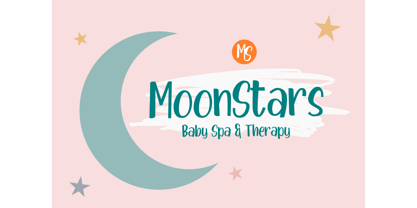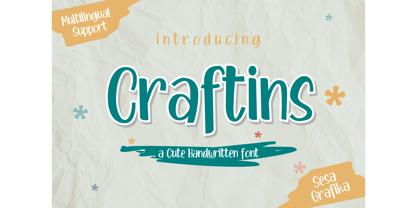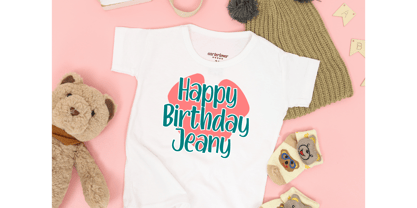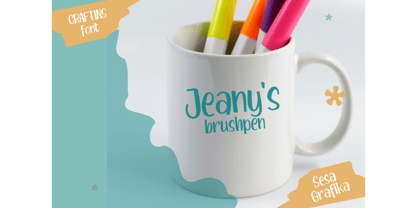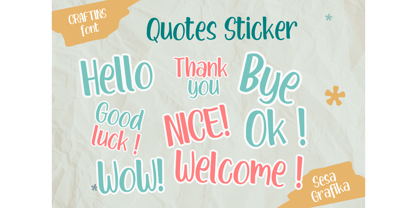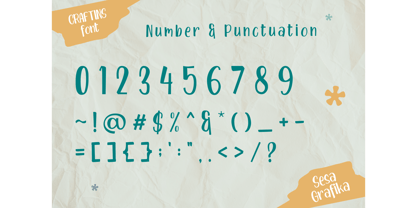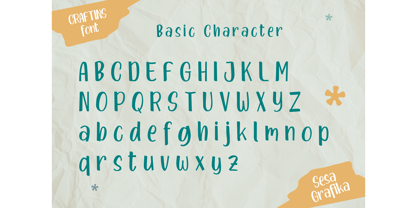
Craftins
The Craftins Font Family was designed by Wisesa Purba Giandar and published by Sesa Grafika. Craftins contains 1 styles.
Craftins is a trendy handwritten font with a contemporary atmosphere and impeccable form, inspired by timeless classic calligraphy. It will add elegance and class to any of your design projects.
a meticulously crafted handwritten font. Each letter, symbol, and space is filled with endearing whimsy and reflects the heart-filled dedication applied to its creation. Craftins exudes a captivating allure that effortlessly elevates your product’s appeal. It’s a splendid choice for an array of mediums, including tote bags, hoodies, mugs, pouches, and cellphone cases, even figurines. Tailored for artisans, this enchanting font infuses every design project with an added touch of magic, making them all the more enjoyable. The Craftins carries universal sentiments, ensuring a successful creative journey in every endeavor.